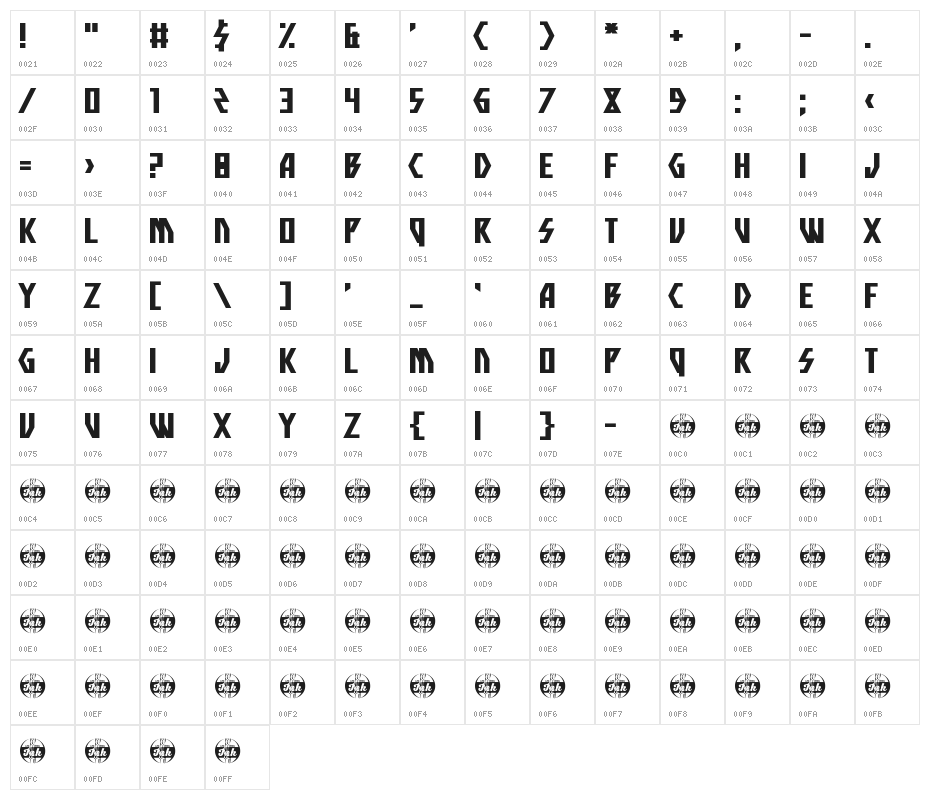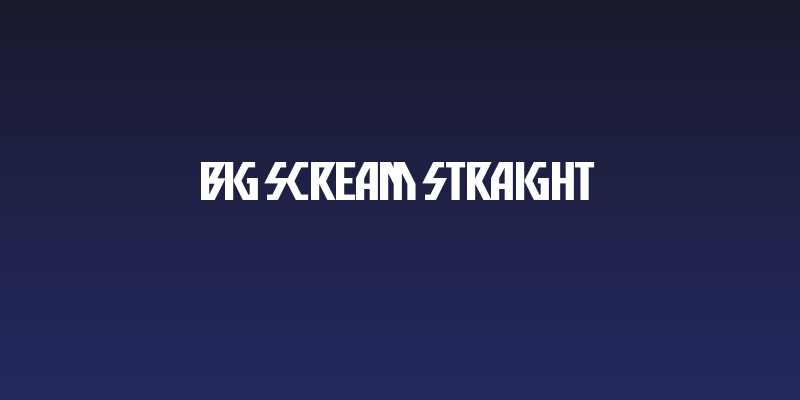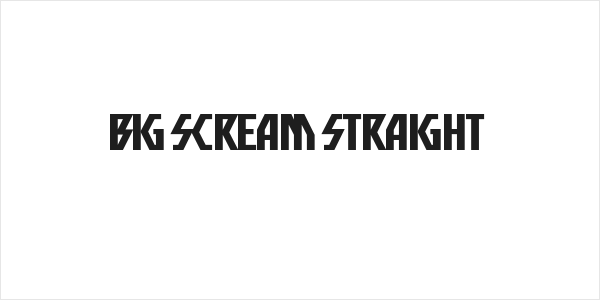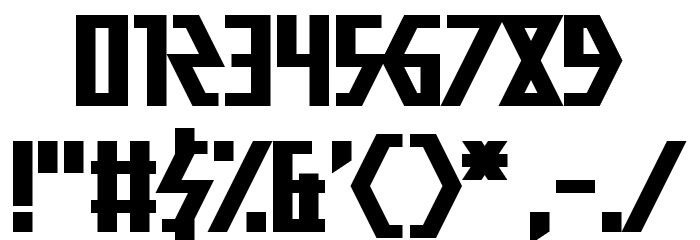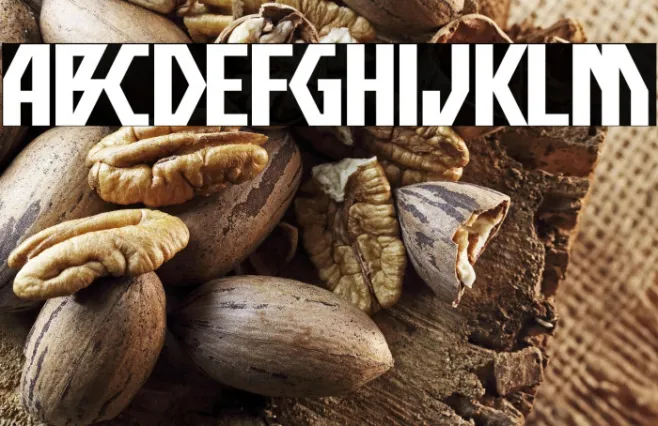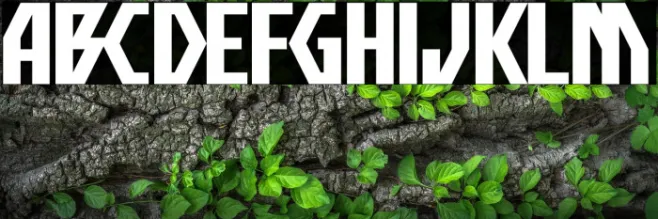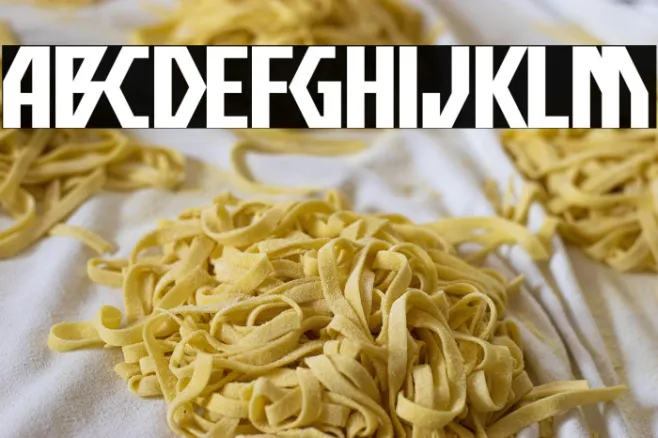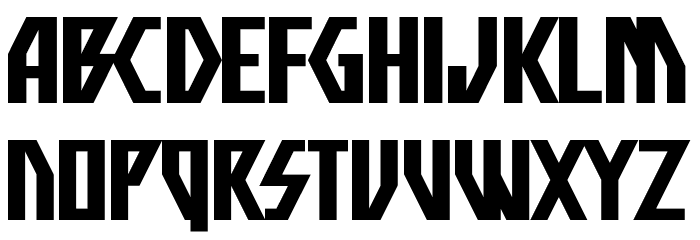
Big Scream Straight Font
Big Scream Straight Description
This font features a bold and geometric design with sharp angles and a futuristic aesthetic. Each character is crafted with precision, showcasing a unique blend of straight lines and angular cuts. The uppercase and lowercase letters maintain a consistent style, emphasizing a modern and edgy look. Numbers and special characters are designed to complement the overall aesthetic, making the font versatile for various creative applications. Its distinct appearance makes it ideal for projects that require a strong visual impact.